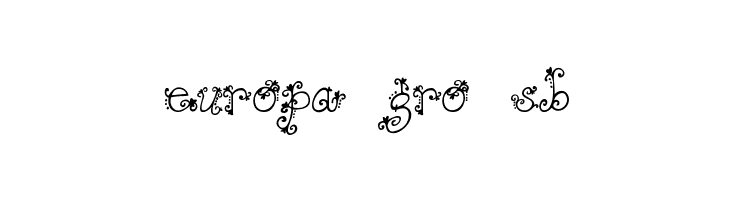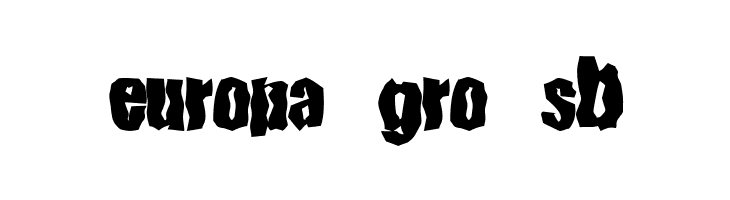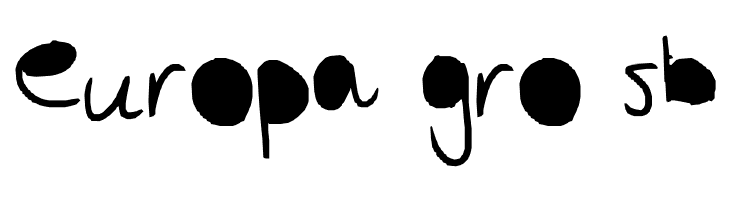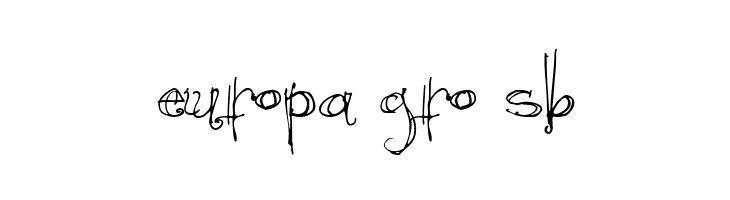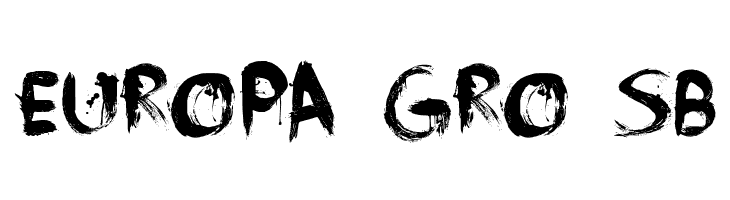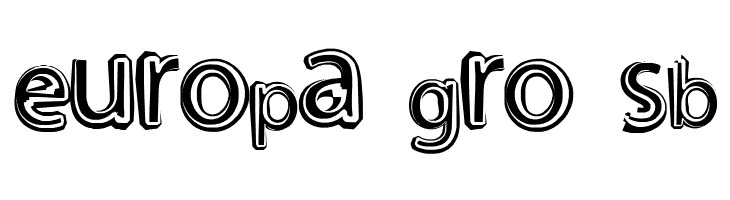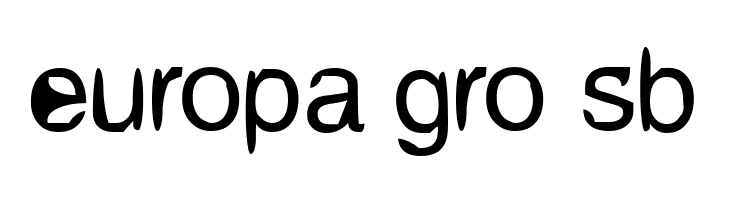
A classic serif font with high contrast and elegant, angular serifs.
A whimsical, hand-drawn font with playful and irregular strokes.
A bold, distressed font with a brush-like texture and chaotic aesthetic.
An ornate, decorative font with intricate swirls and floral embellishments.
A playful, hand-drawn font with a doodle-like, double-lined style.
A bold, distressed outline font with a vintage ticket-like style.
An elegant outline serif font with a light and airy feel.
A bold, outlined serif font with a classic yet artistic style.